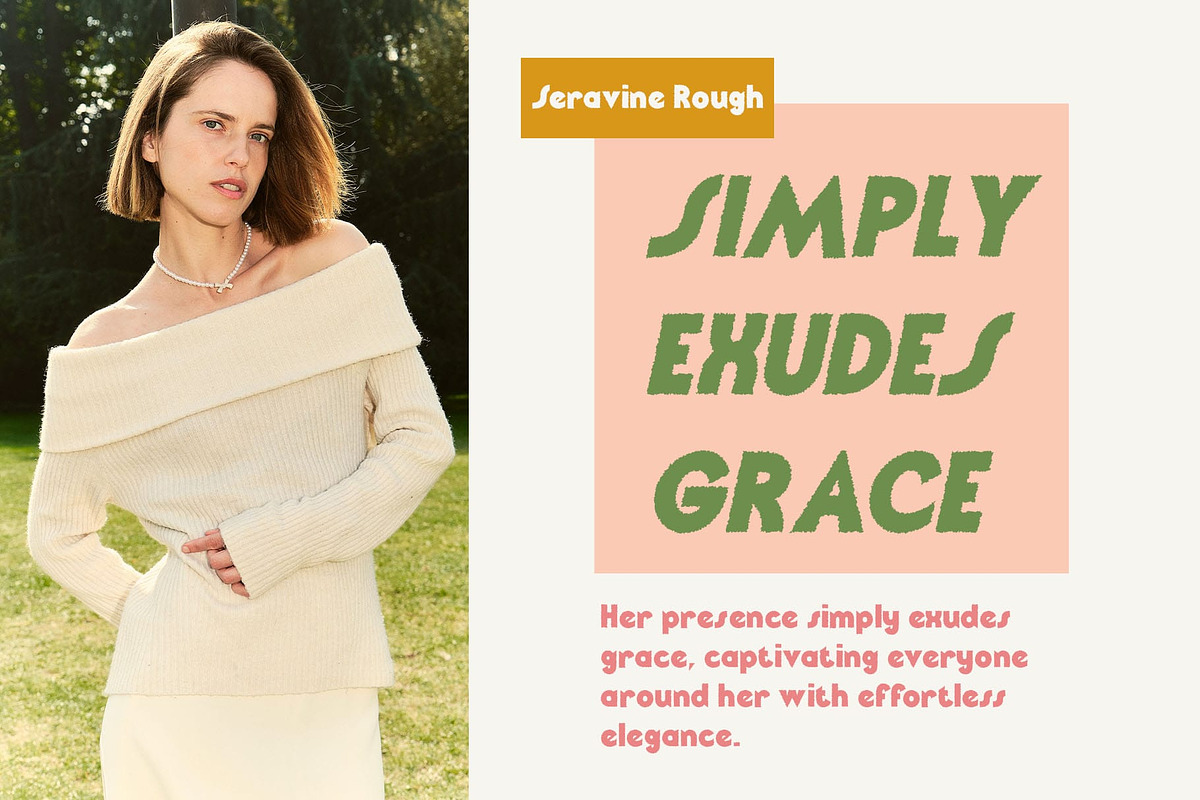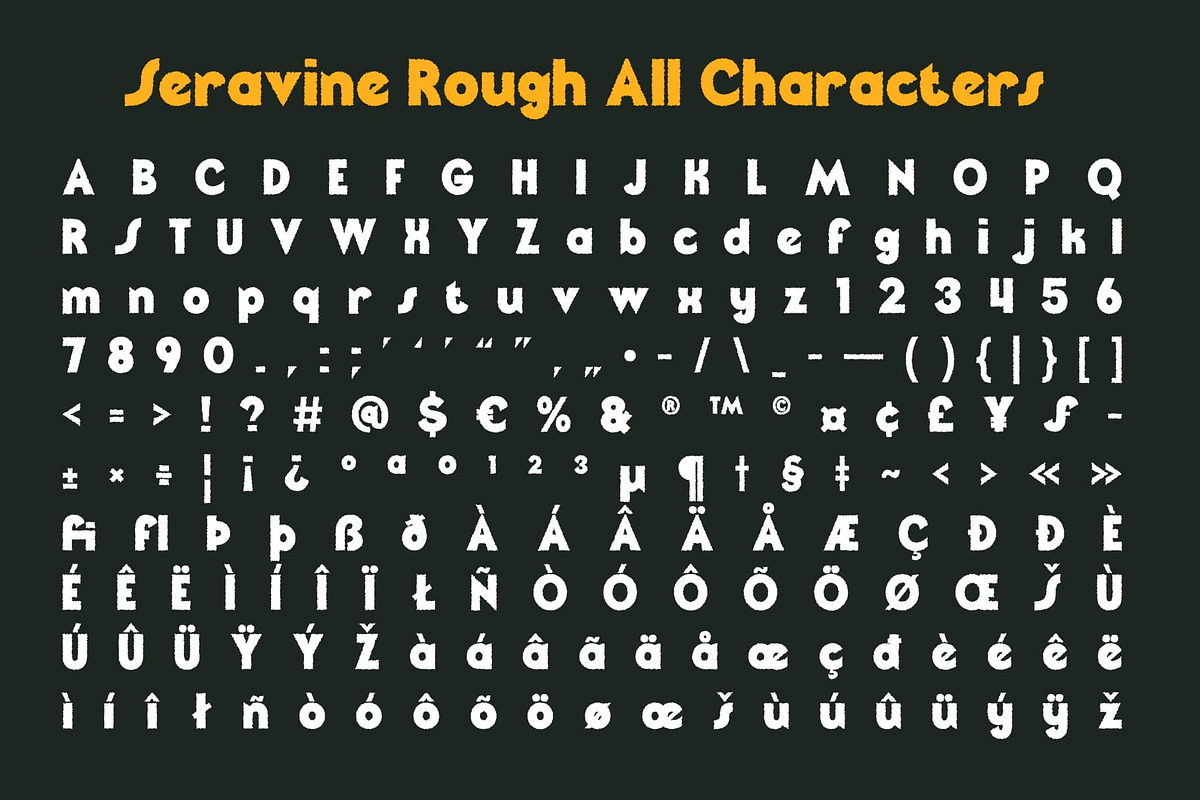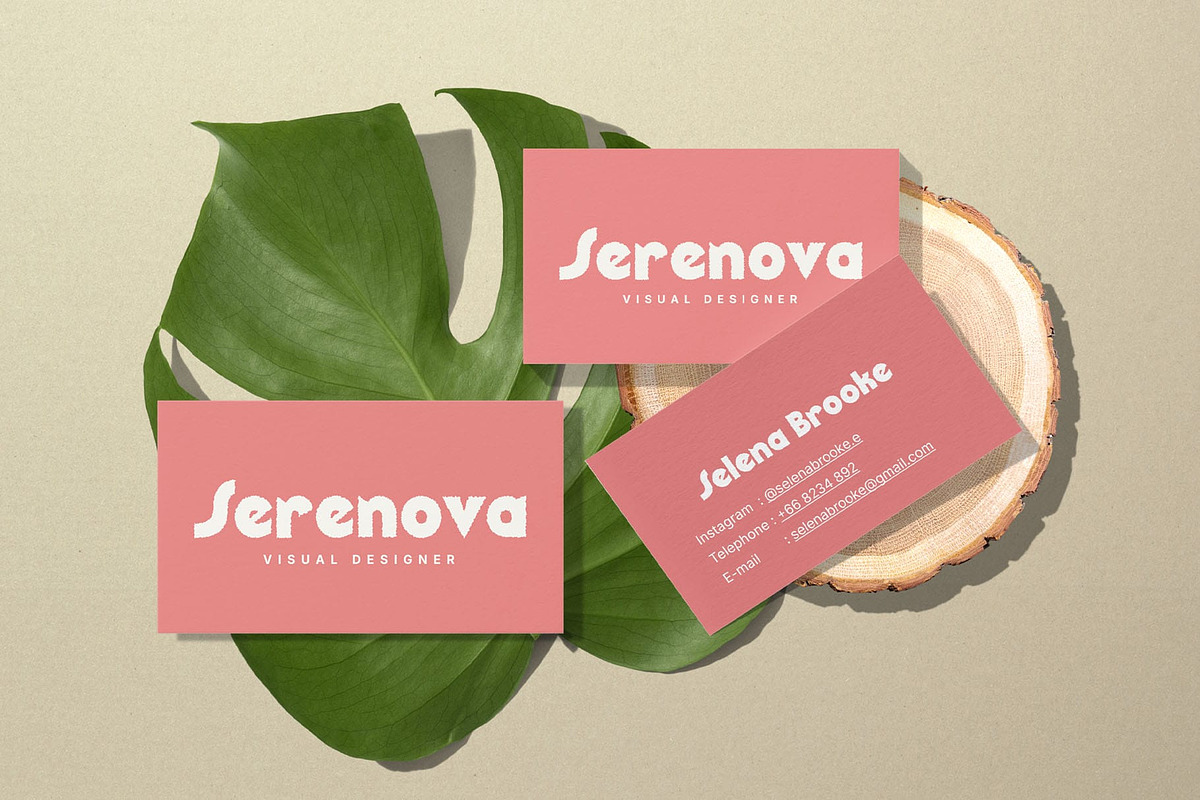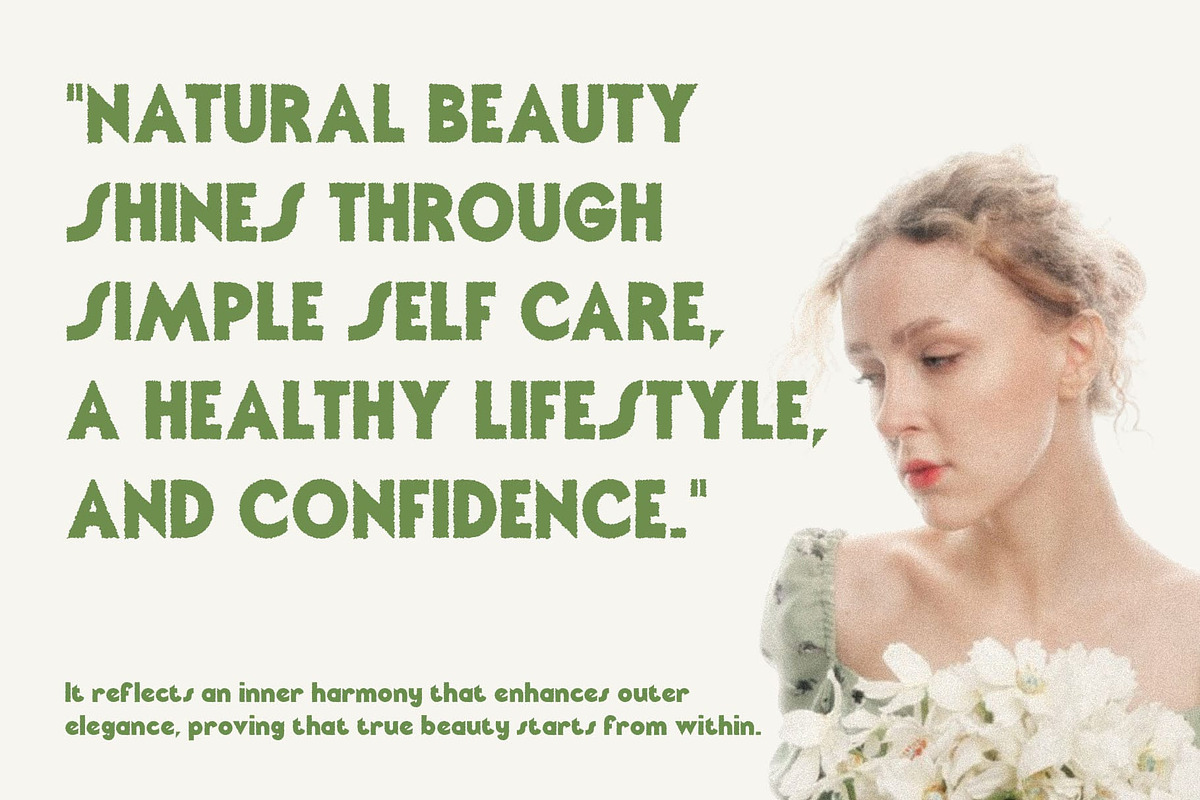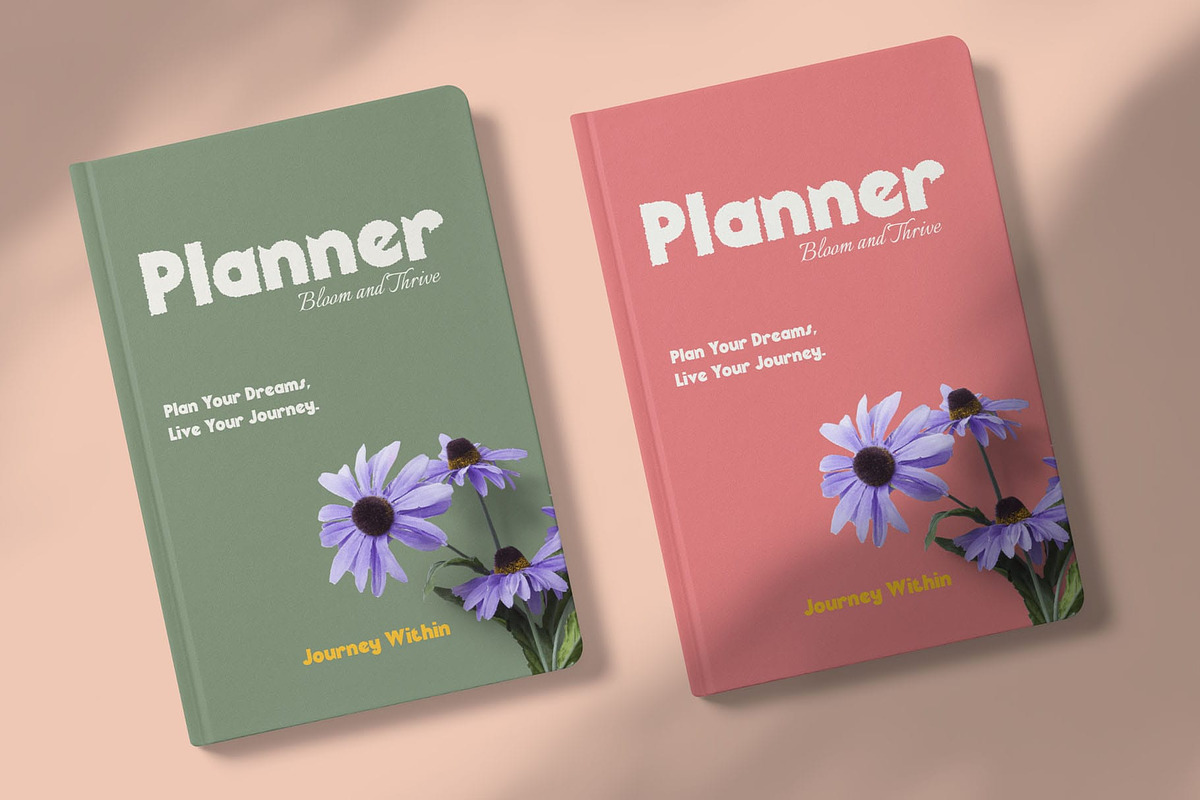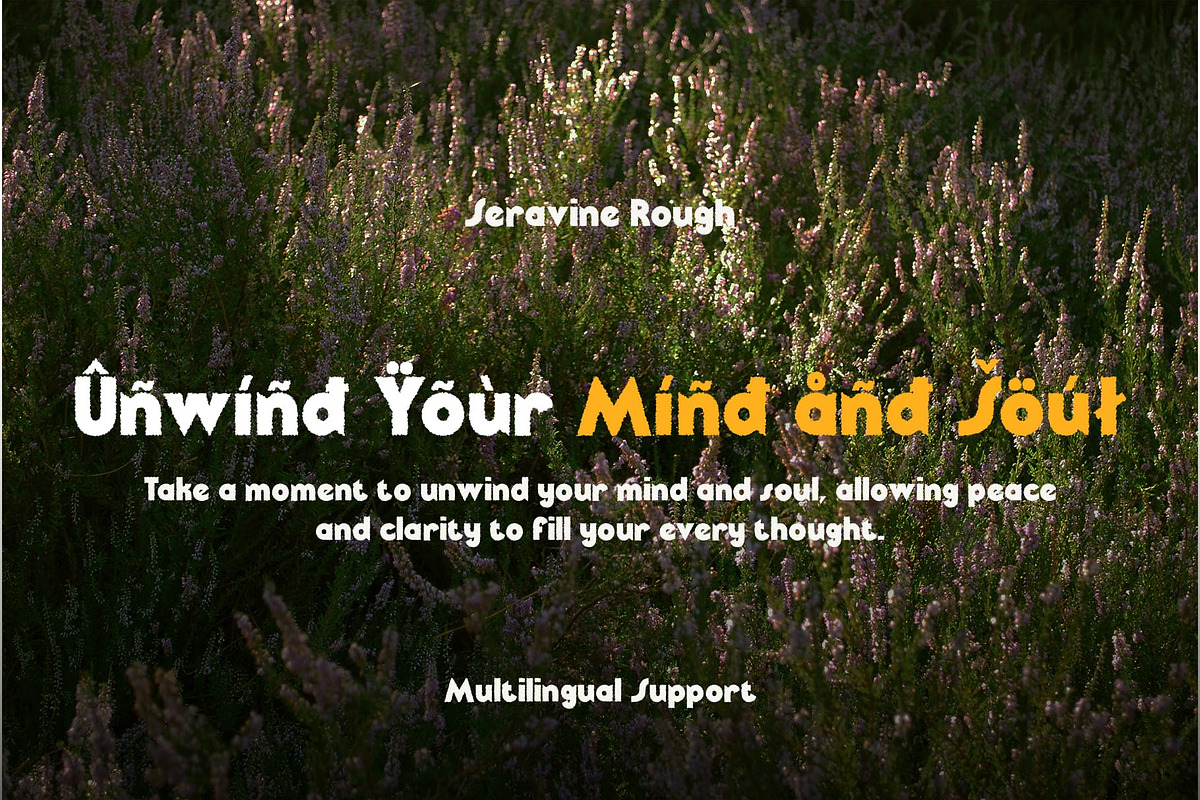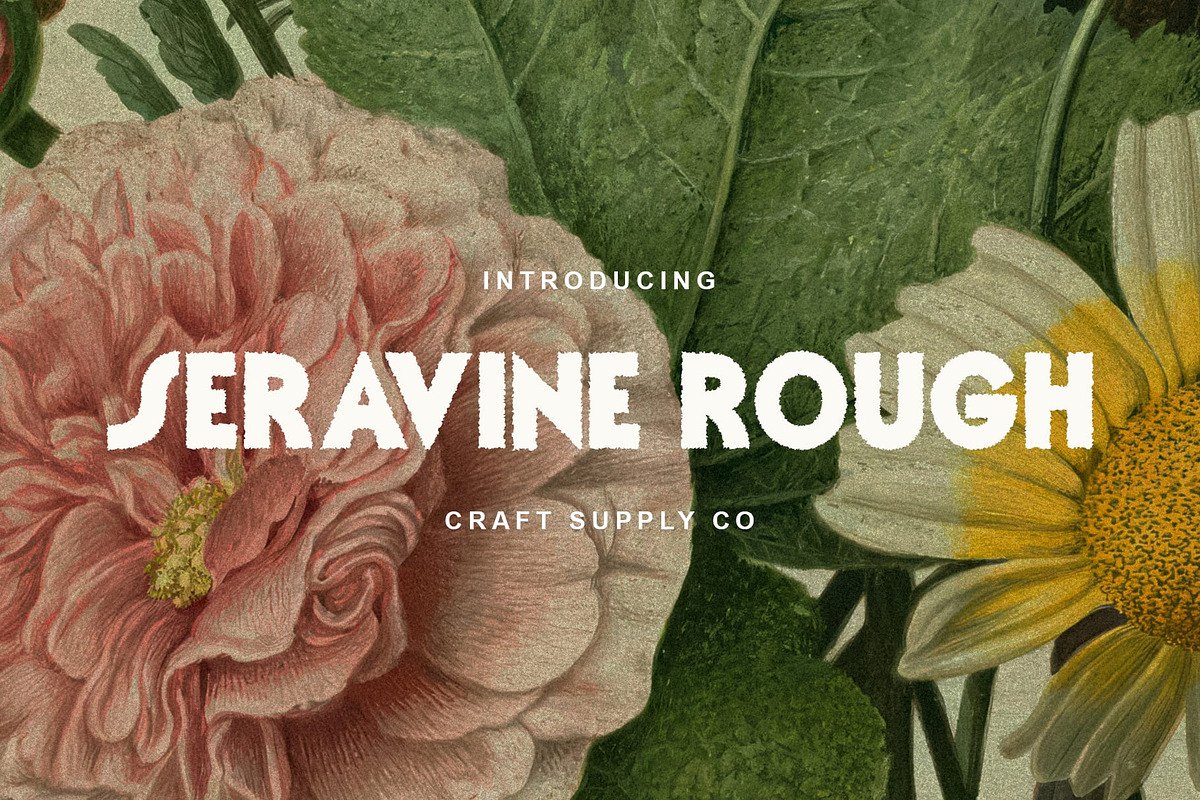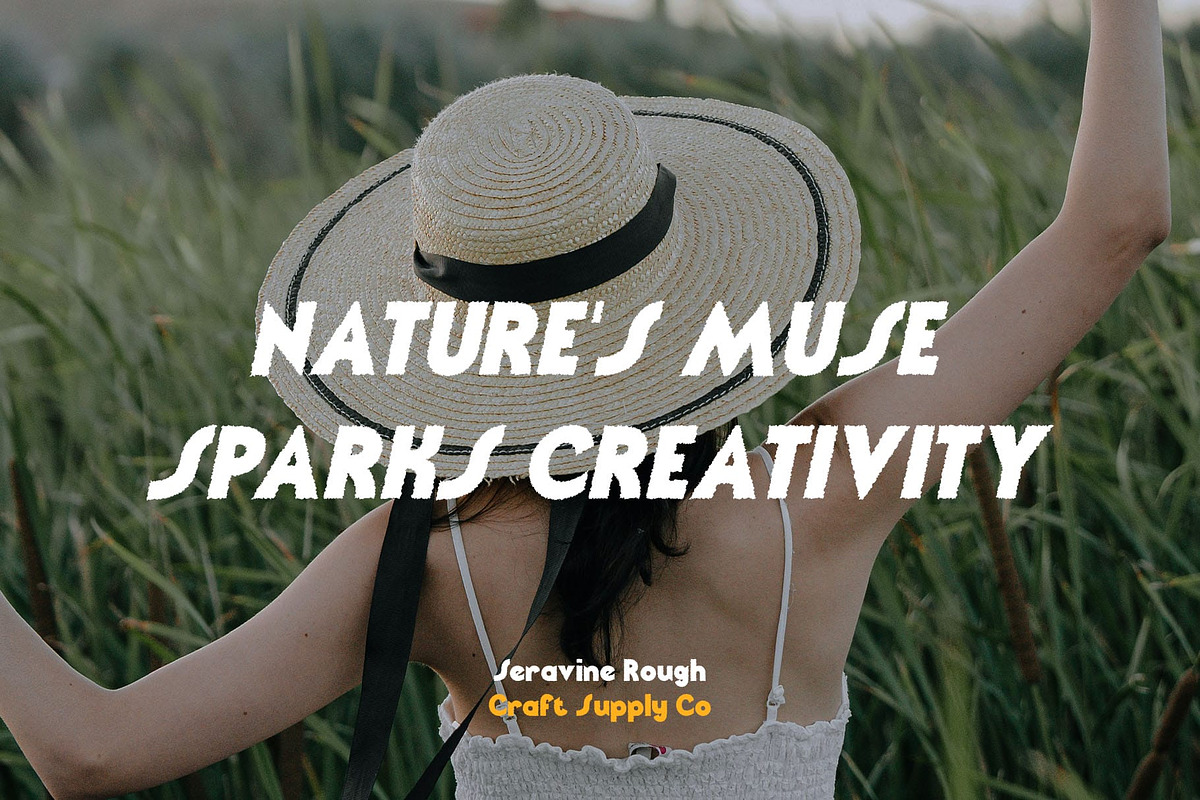
Seravine Rough
Seravine Rough Font: Bold, Geometric, and Funky with a Rough Edge
A Perfect Blend of Strength and Playfulness Seravine Rough is a striking display sans-serif font that combines bold, geometric shapes with a retro, funky vibe. The font’s angular, strong forms provide a solid, impactful structure, while the rough effect introduces a tactile, edgy quality, giving it a handcrafted and unique character. This fusion of boldness and texture creates a dynamic visual presence, making Seravine Rough perfect for designs that demand attention.
Evoking Nostalgia with a Modern Twist Inspired by retro design elements, Seravine Rough brings a sense of nostalgia while staying fresh and contemporary. The rough texture adds a vintage charm, making it ideal for projects that want to evoke memories of the past while remaining relevant to today’s trends. Its playful yet strong aesthetic is perfect for designs that need to stand out with a bold, energetic style.
Ideal for Creative Projects with Impact Seravine Rough is perfect for a wide range of creative designs, from eye-catching posters and vibrant album covers to unique branding projects. Its distinctive, angular shapes combined with the rough texture make it ideal for projects that need to make a bold statement while maintaining a fun, dynamic, and engaging look.